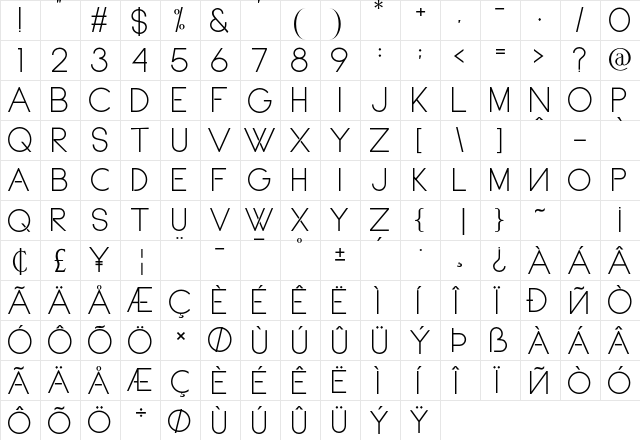
Axilia Regular
| Designer | Gilar Studio |
Design Context for Axilia Typeface
Axilia is a composed and adaptable typeface that performs quietly and consistently across a wide range of design contexts.